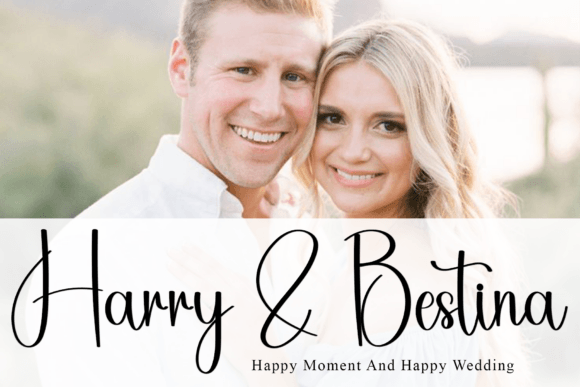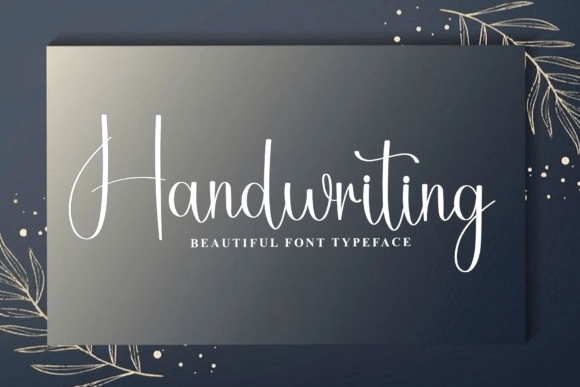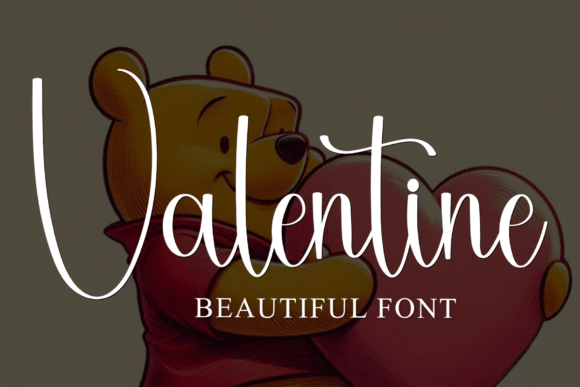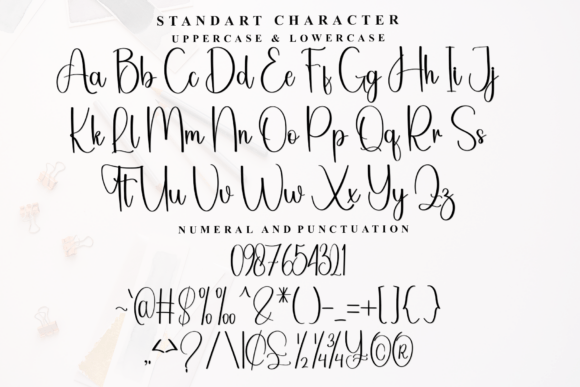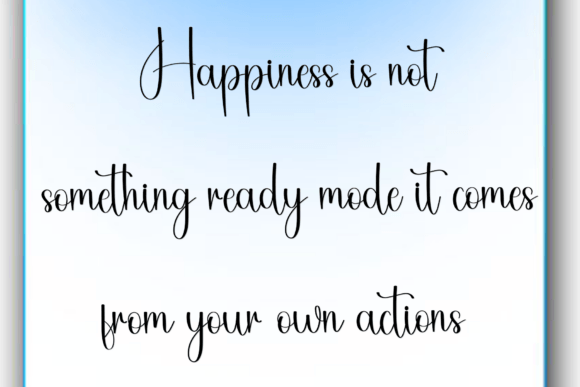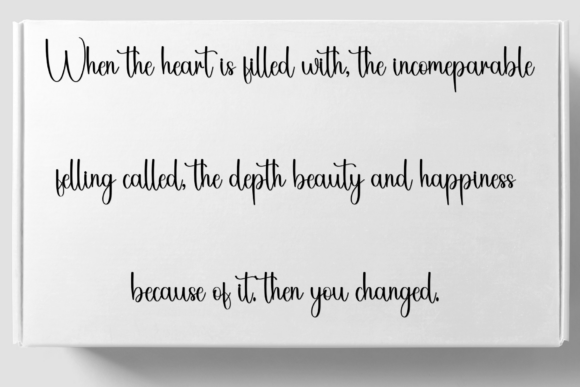
The Designer’s Dilemma: Finding the Perfect Handmade Font
I still remember the frustration of working on a design project, hours spent searching for the ideal font that would bring my vision to life. My client wanted something unique, something handmade, something that would make their brand stand out. And then, I stumbled upon Better Handmade. ✨
This beautiful font has been a game-changer for me, and I’m excited to share my experience with you. In this article, we’ll dive into the world of Better Handmade, exploring its features, uses, and what makes it a must-have for designers, crafters, and creative hobbyists.
Better Handmade: A Beautifully Crafted Font
Better Handmade is a stunning font designed with a soft, unique touch. Its distinctive strokes give it a special character, making it meaningful and versatile for future use. With various characters, it’s perfect for design projects, crafts, and other creative works. Whether you’re designing a logo, creating a handmade card, or crafting a beautiful poster, Better Handmade is an excellent choice.
- ✨ Unique and eye-catching design
- ✅ Beautifully crafted with a soft, handmade touch
While Better Handmade is an amazing font, there are a few things to keep in mind: 🤔
The Story Behind Better Handmade
Better Handmade was designed with the intention of creating a unique, handmade font that would inspire creativity and bring a personal touch to design projects. The designer aimed to craft a font that would be both beautiful and versatile, with a distinctive character that would make it stand out.
Q: What makes Better Handmade unique?
A: Better Handmade features a distinctive, handmade design with a soft, unique touch that sets it apart from other fonts.